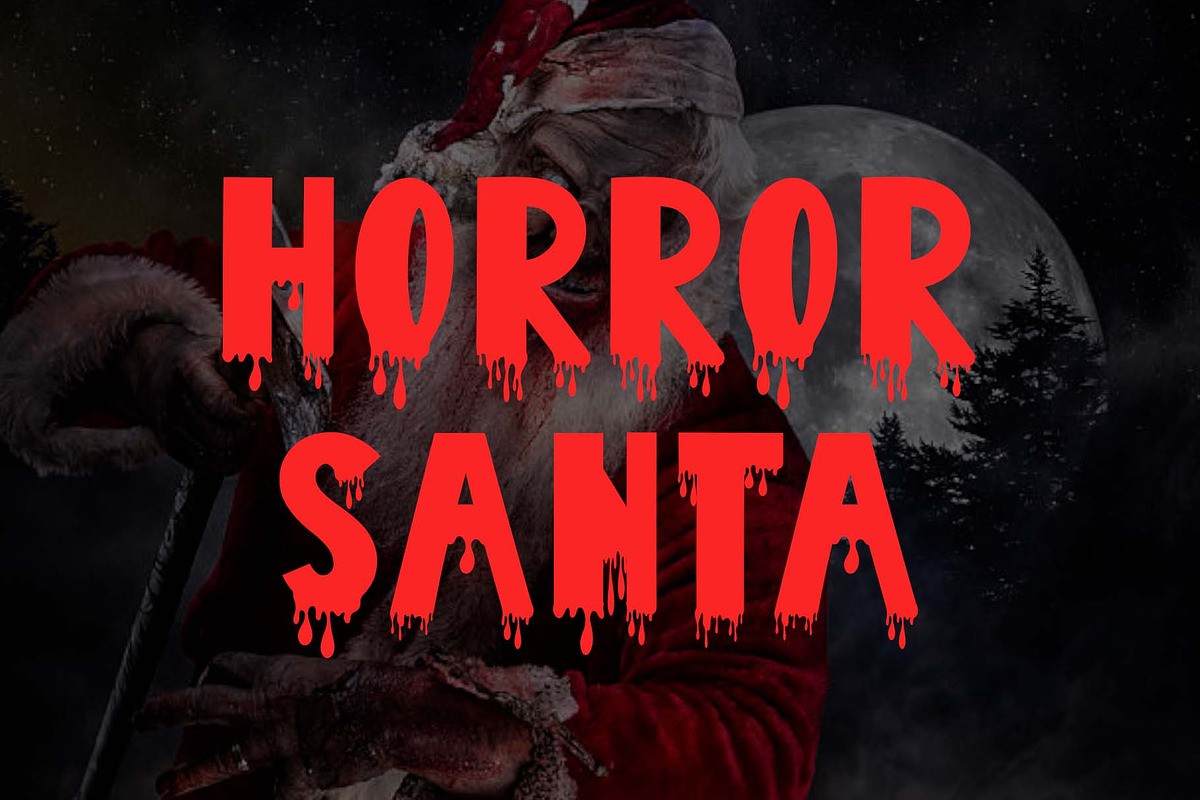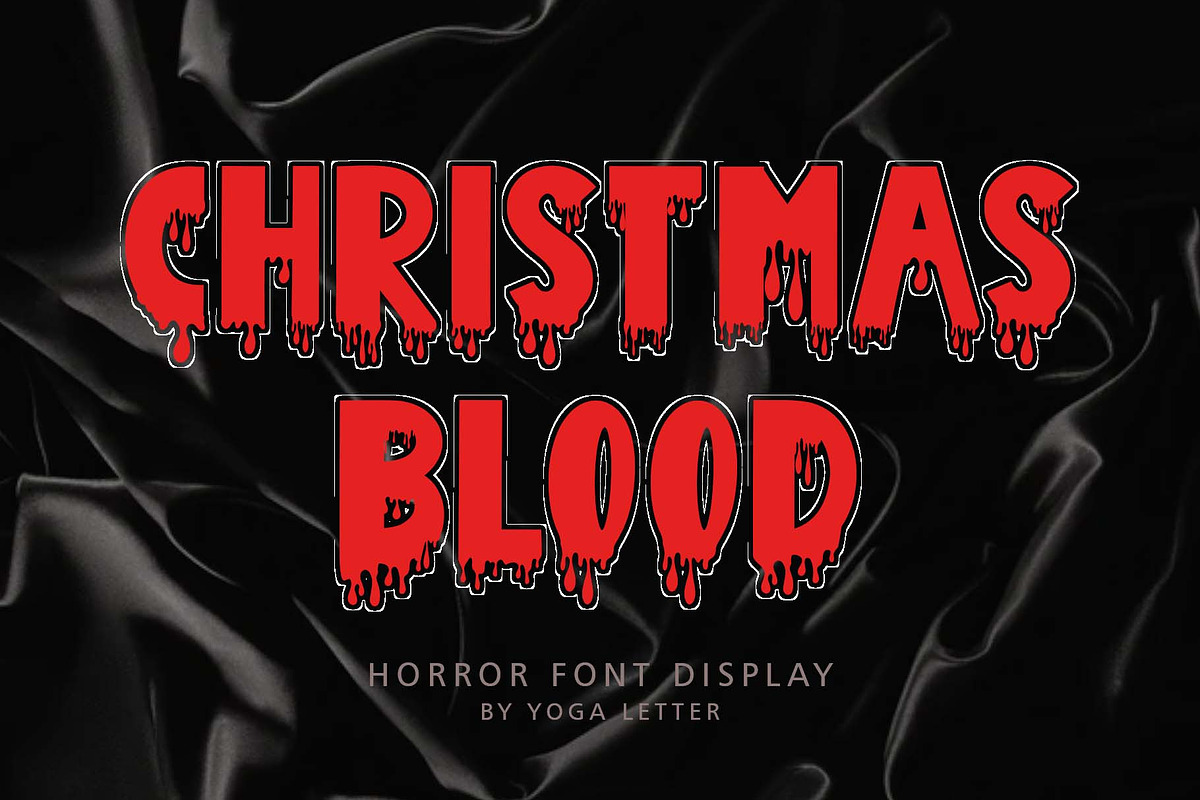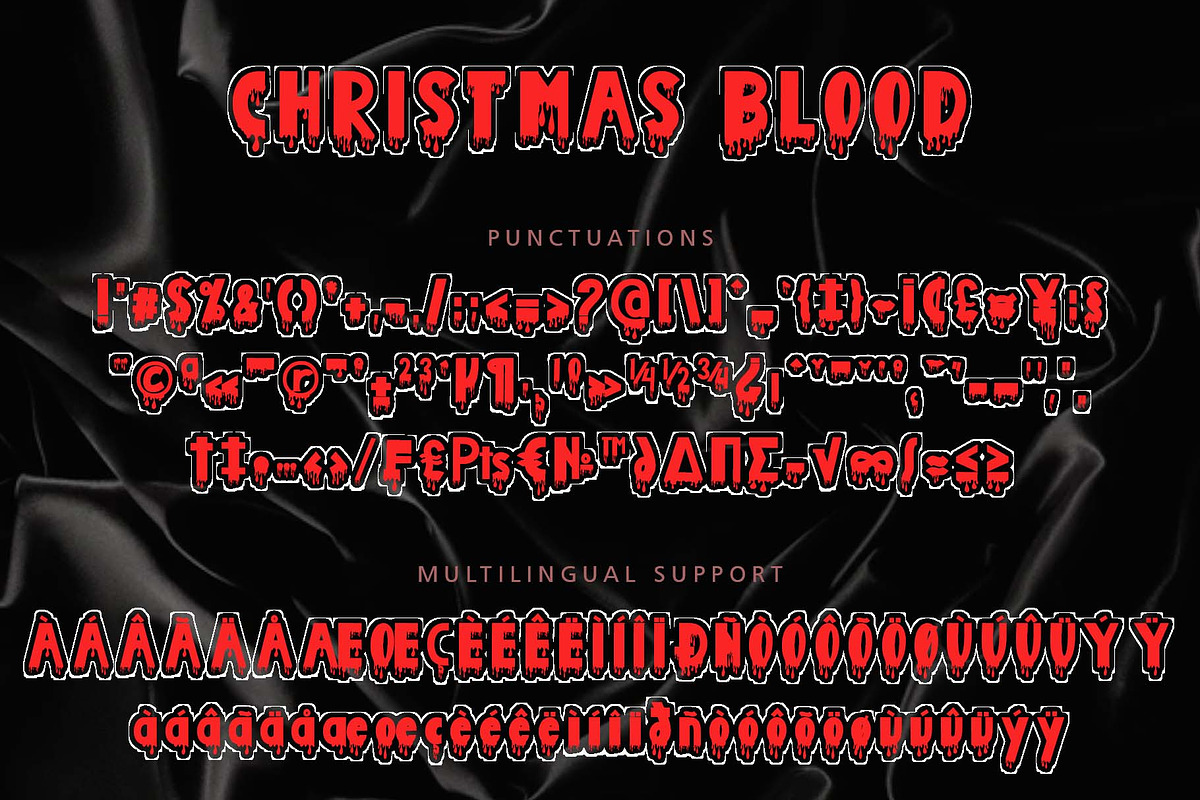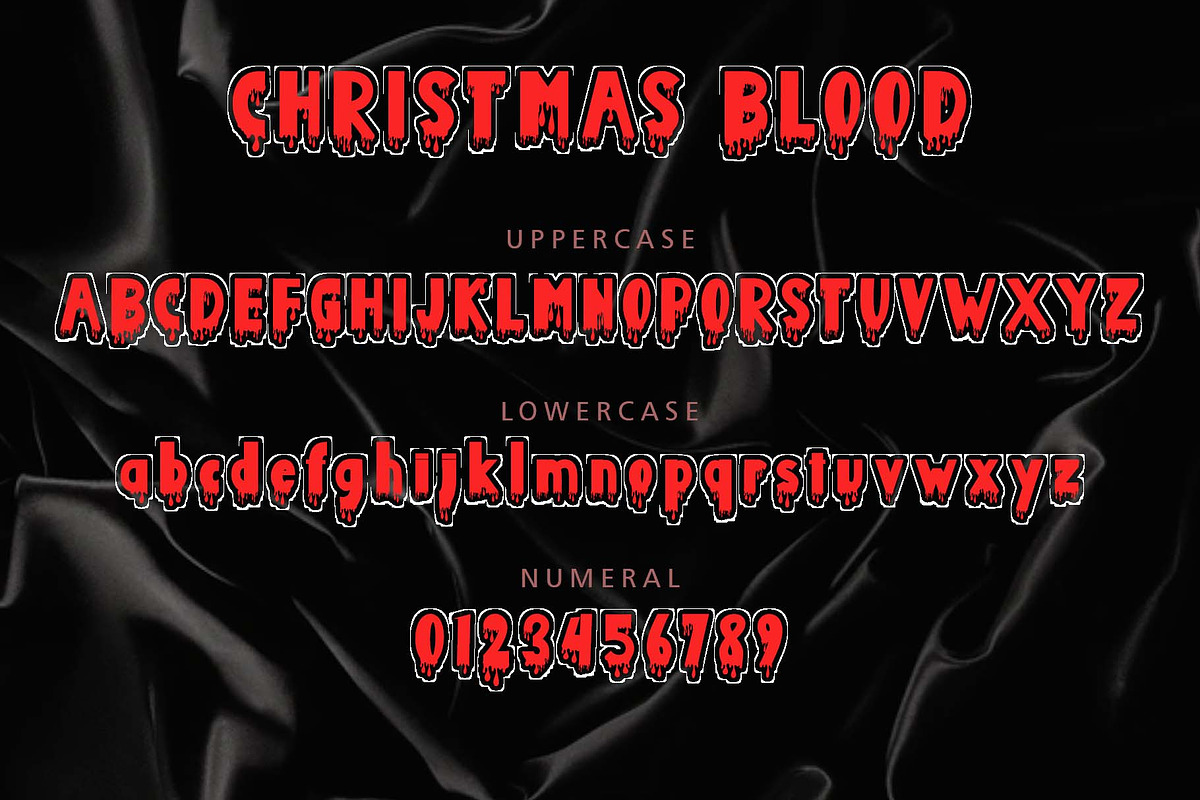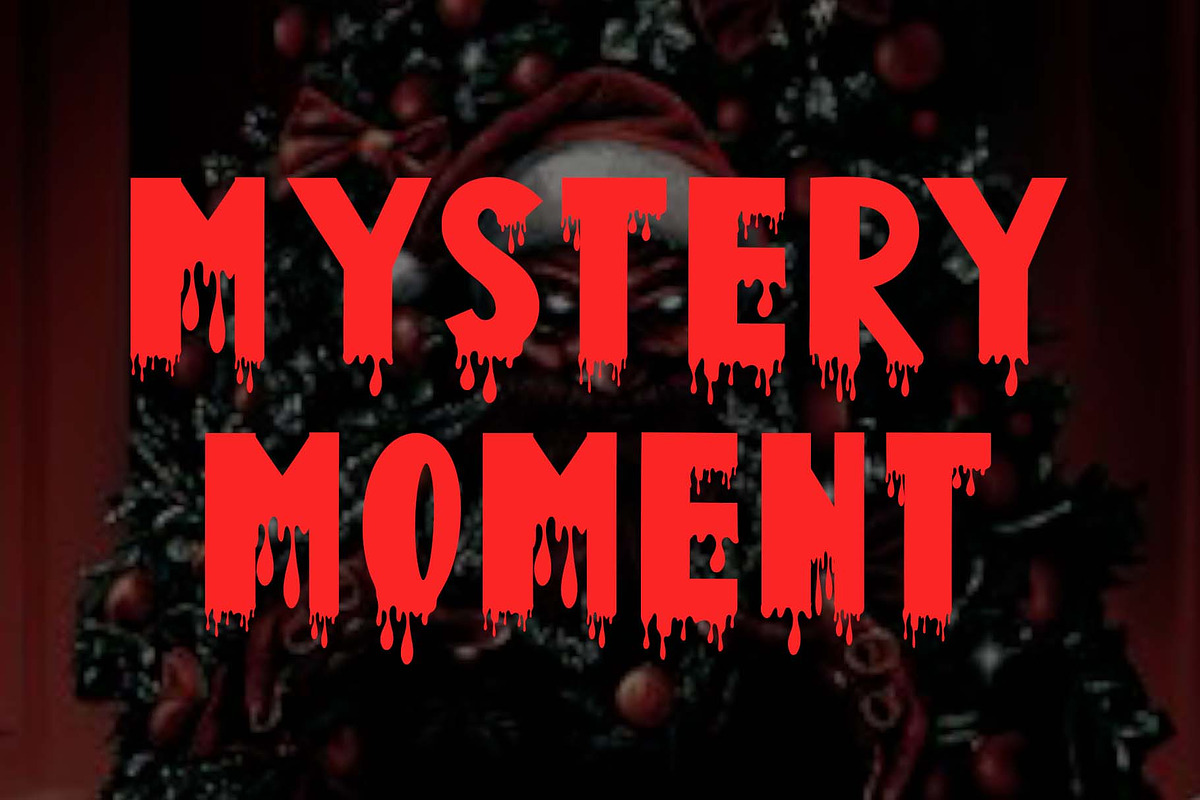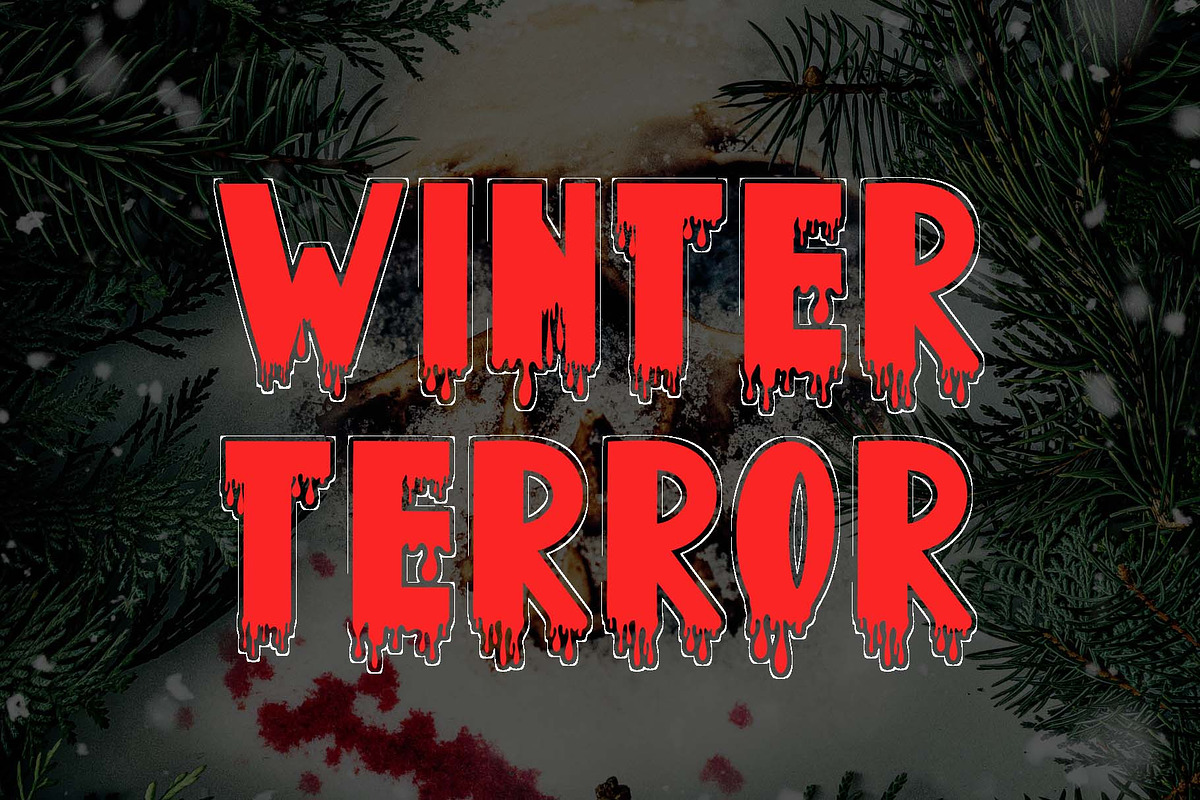
Christmas Blood
"Christmas Blood" is a unique and spooky horror display font. It comes with uppercase, lowercase, numbers, punctuation, and multilingual support. Perfect for posters, banners, branding, halloween, parties, invitations, horror movies, horror comics, and more.